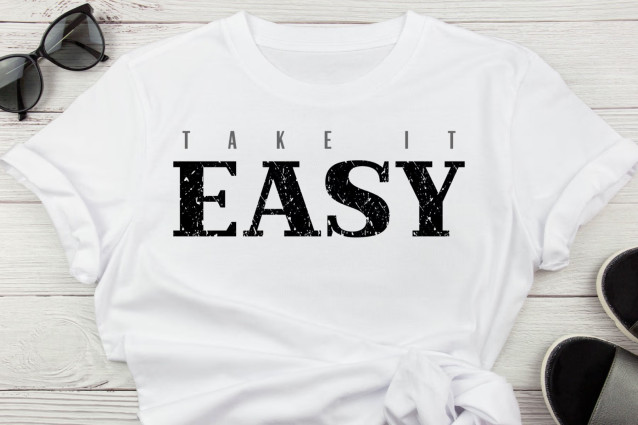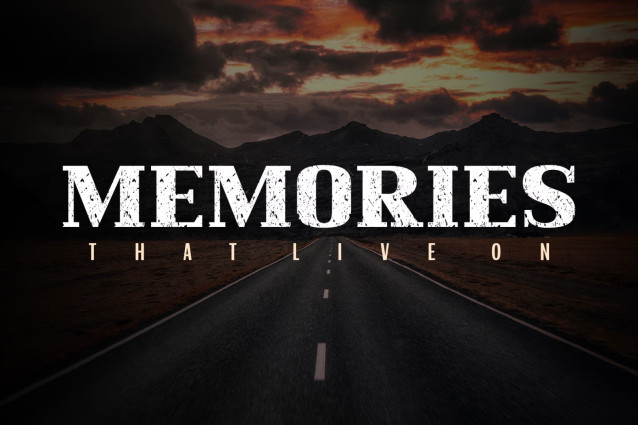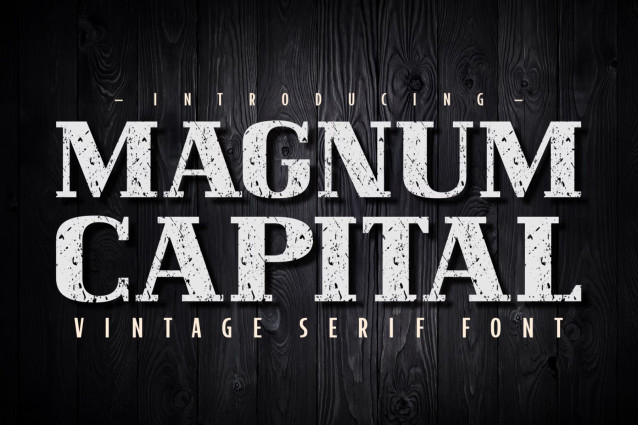
Magnum Capital Font
Magnum Capital is a bold, thick lettered and uniquely designed serif font. This font reads as strong, confident, and dynamic and can add tons of stylish character to your designs.